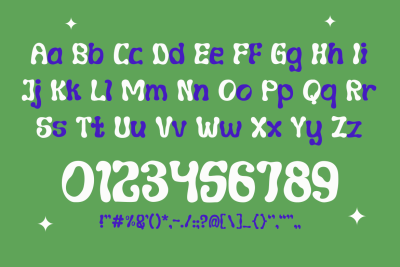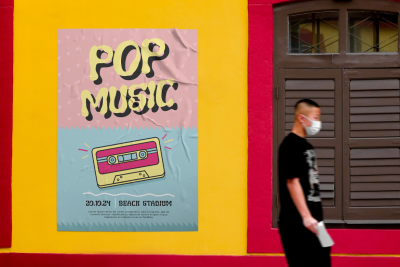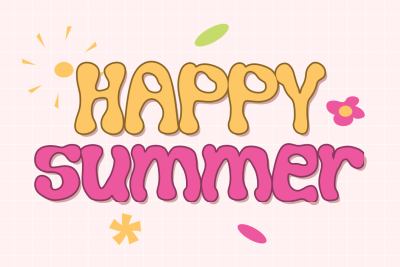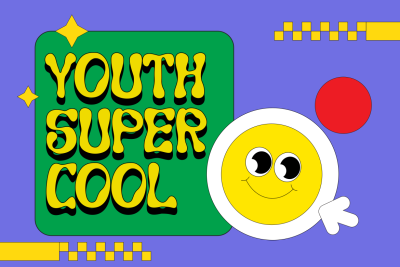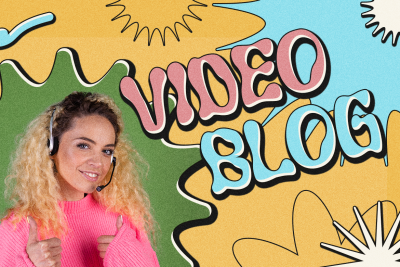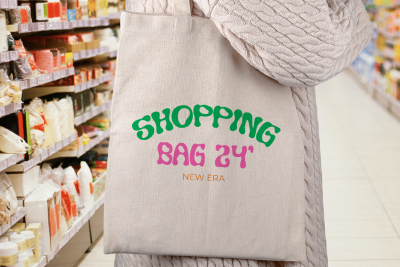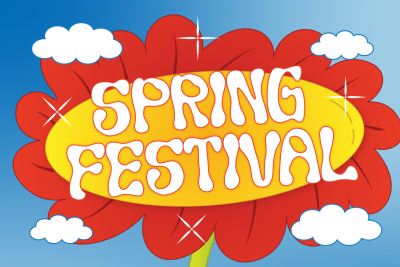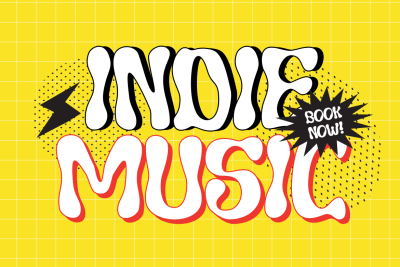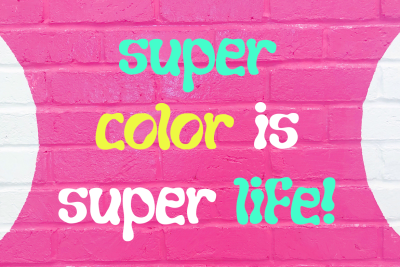
Retro Font Wavy World exudes nostalgic charm while embracing a modern twist. Its flowing, wave-like strokes and bold curves immediately capture attention. Inspired by the groovy vibes of the ’70s, this typeface beautifully blends cheerful retro aesthetics with practical versatility. Therefore, it is perfect for creating standout headlines, eye-catching posters, and unique branding materials. In every design, it communicates fun, freedom, and individuality.
Moreover, the wavy forms in this font create a lively and approachable personality. The designers crafted each character with precision to ensure both readability and artistic flair. Consequently, its boldness makes it ideal for projects where text must visually dominate. Additionally, its playful curves add a friendly and creative touch, making it perfectly suited for a wide variety of designs. Furthermore, Retro Font Wavy World works seamlessly in digital and print mediums, offering designers unmatched flexibility. Whether you need bold lettering for social media campaigns or eye-catching signage for events, this typeface adapts to your vision with ease.
Retro Font Wavy World Who Should Use It?
Designers, marketers, and creators seeking a nostalgic yet original typeface will love Retro Font Wavy World. For branding professionals, it provides an excellent tool to develop logos or packaging that stand out while evoking warmth and charm. Similarly, event organizers can use this typeface to craft posters, invitations, or banners with a retro-modern twist.
In addition, cafes, bakeries, and vintage shops will benefit from this fontโs authentic and approachable look. It helps these businesses connect with audiences searching for charm and individuality. Likewise, social media influencers and lifestyle brands can boost their visual identity by using this bold and playful typeface. For childrenโs books, colorful advertisements, or themed presentations, Retro Font Wavy World adds a unique flair that captivates viewers and readers alike.
In conclusion, Wavy World is perfect for anyone combining retro vibes with modern design needs. Its versatility ensures that it brings creativity, impact, and uniqueness to any project. Whether youโre crafting a marketing campaign or personal project, this typeface promises to leave a lasting impression.